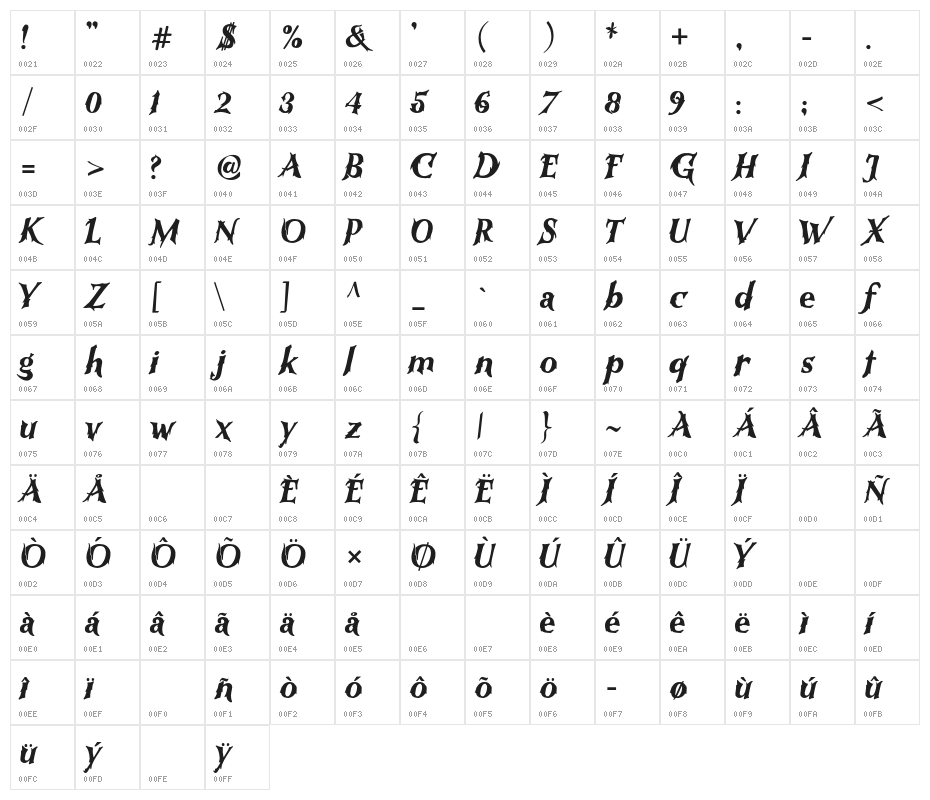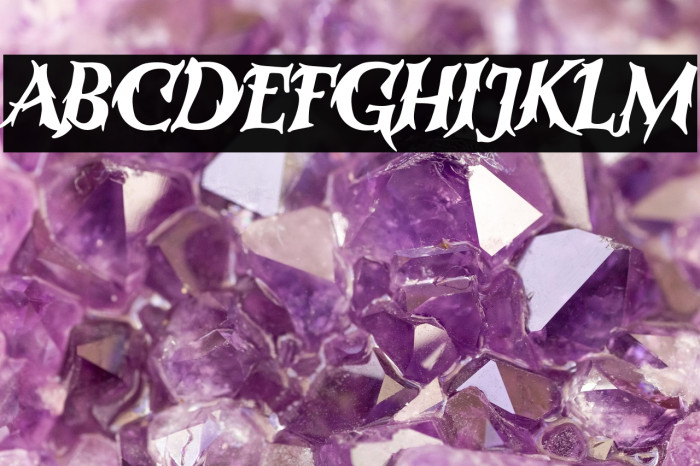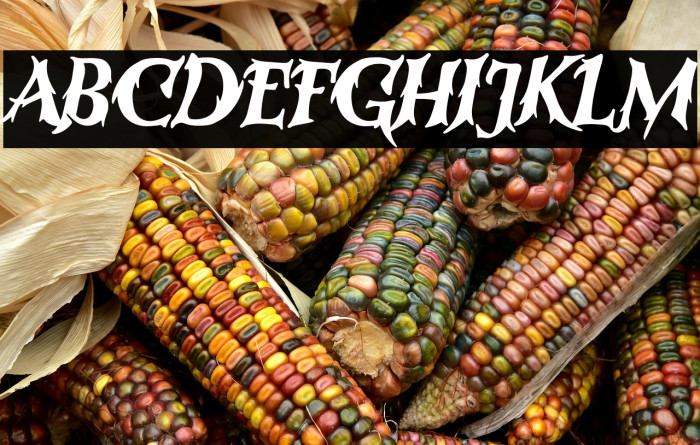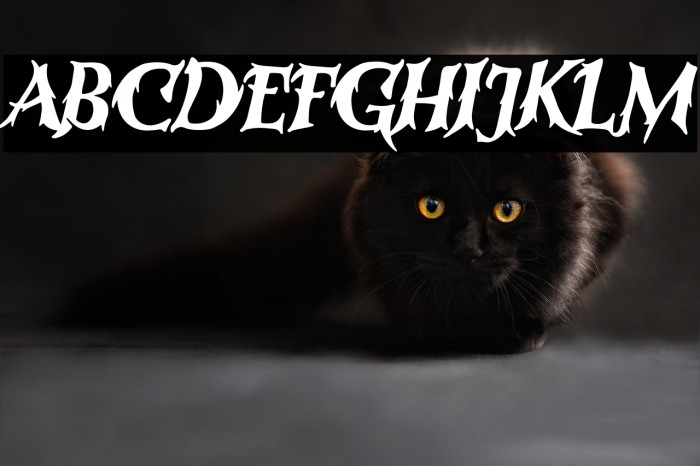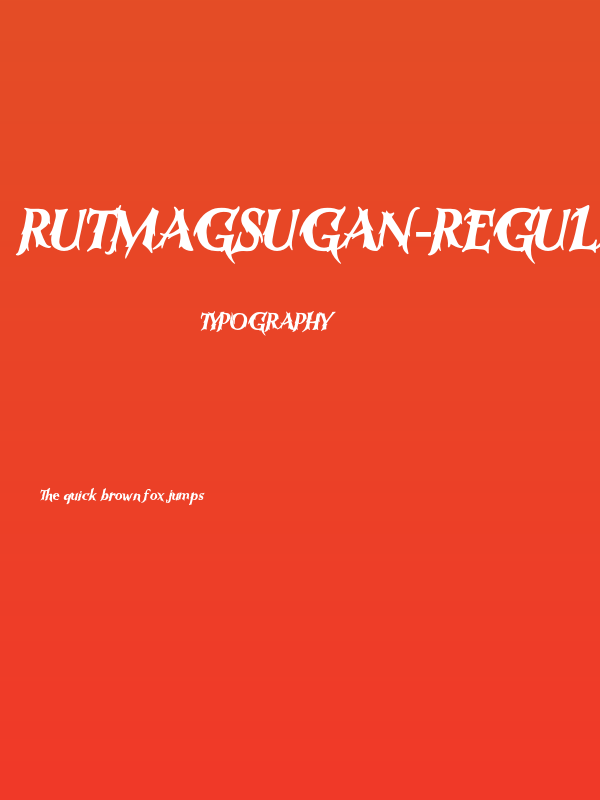
RutmagSugan-Regular Font
RutmagSugan-Regular Description
This font features a bold and dramatic style with sharp, angular edges and a gothic flair. The characters are highly stylized, with exaggerated serifs and a distinct medieval influence. The uppercase letters are particularly striking, with a sense of movement and energy, while the lowercase letters maintain a consistent style that complements the uppercase. The numerals and special characters are equally bold, maintaining the overall aesthetic. This font is ideal for projects that require a strong, impactful visual presence.
| Proposed Projects | Perfect for fantasy-themed designs, book covers, posters, and branding that requires a strong, medieval aesthetic. |